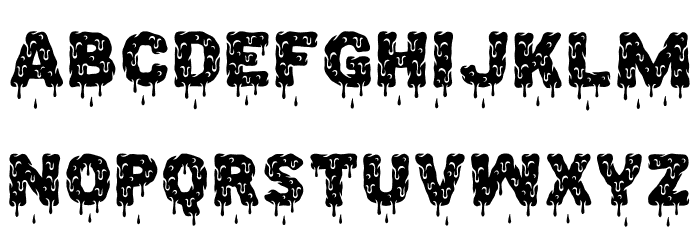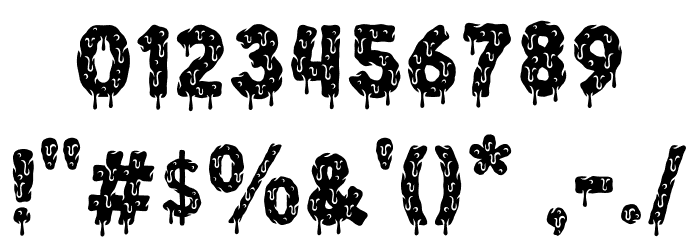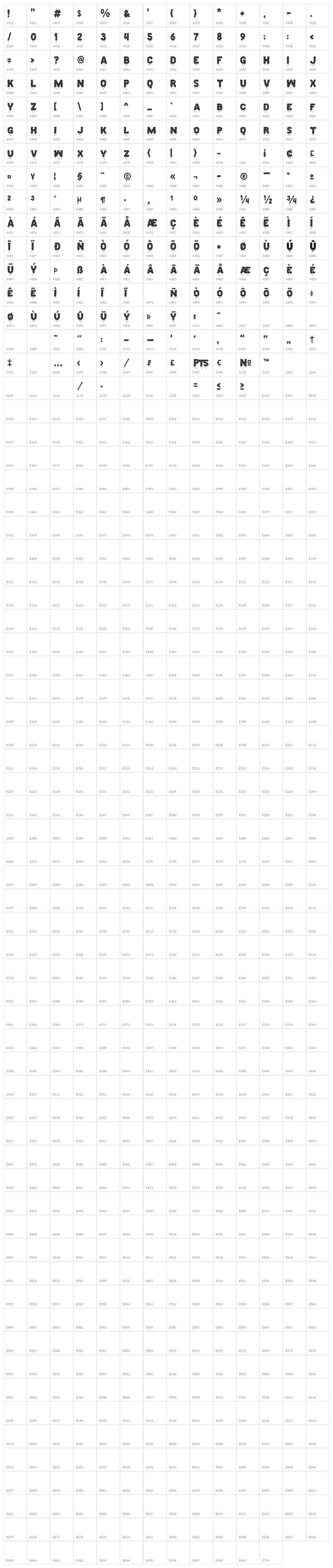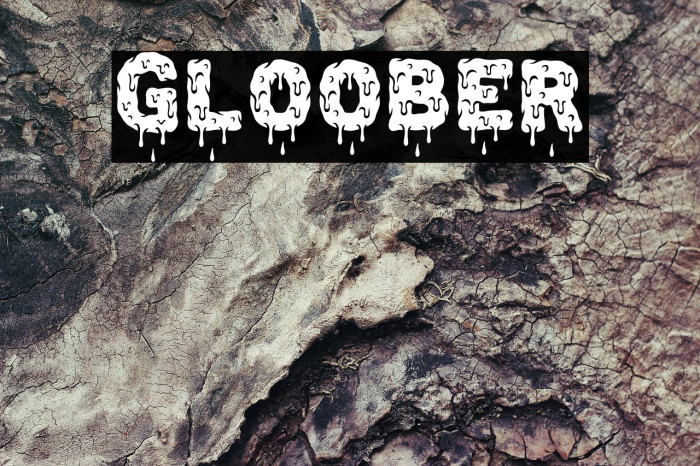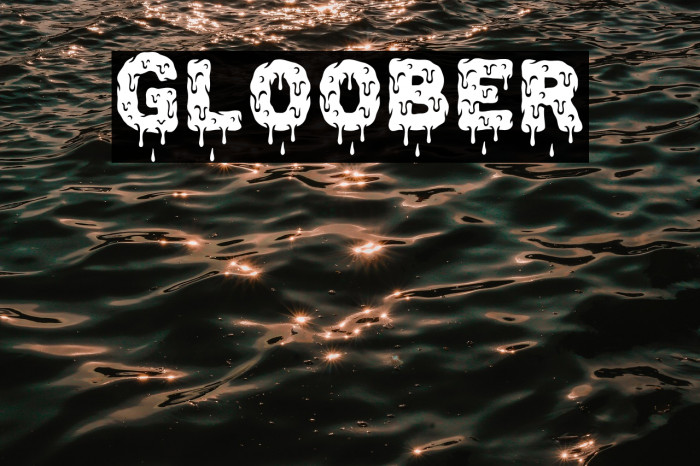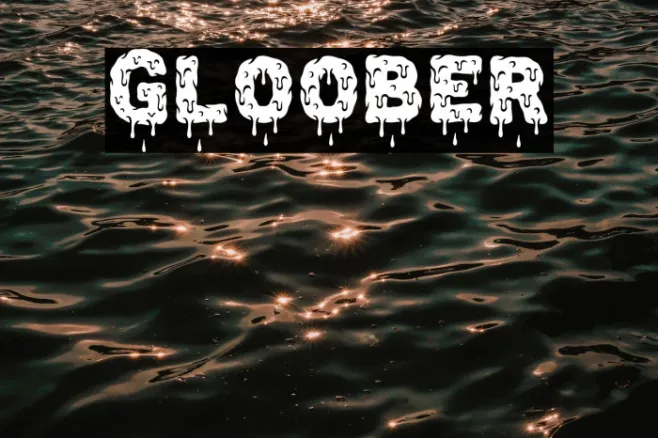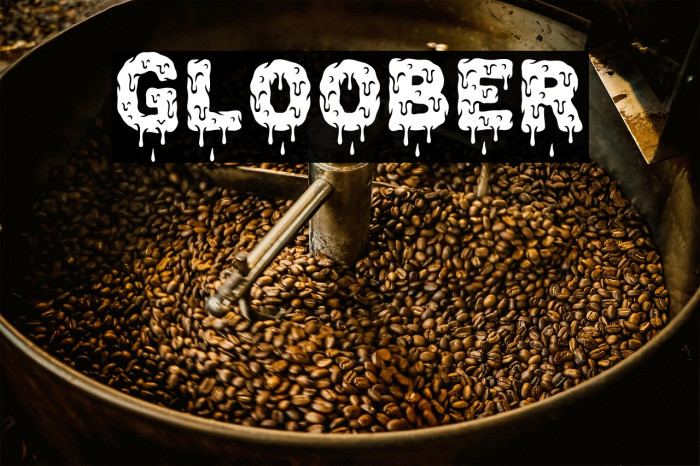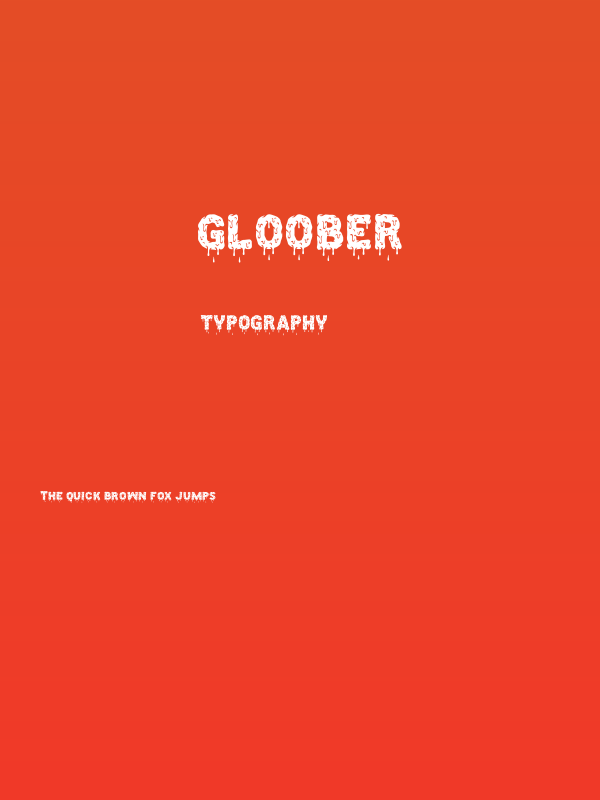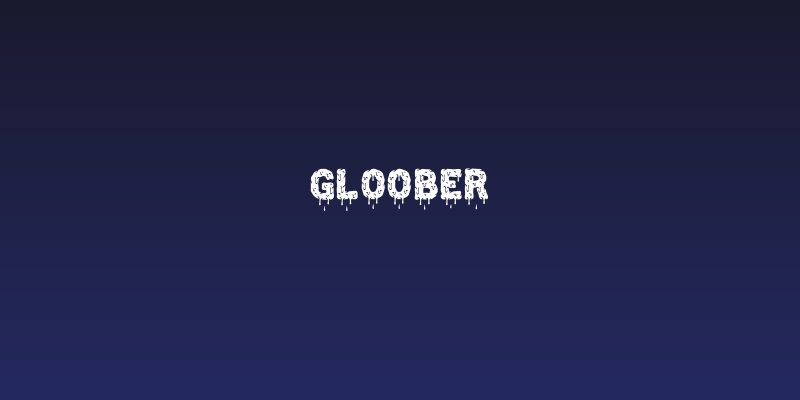
Gloober Font
This font features a unique and playful design with a dripping, gooey effect that gives it a distinctive and eye-catching appearance. The characters are bold and rounded, with each letter appearing as if it is melting or dripping, creating a dynamic and fluid look. This style is reminiscent of horror or Halloween themes, making it ideal for projects that require a spooky or fun aesthetic. The font maintains consistent thickness throughout, with medium contrast in stroke width, enhancing its readability despite the decorative elements.
A bold, dripping font with a playful, spooky aesthetic.
- Font: Gloober
- Proposed Projects: Ideal for Halloween-themed designs, horror movie posters, party invitations, and any creative project needing a fun, spooky vibe.
- Use Case: Headlines, Posters, Logos